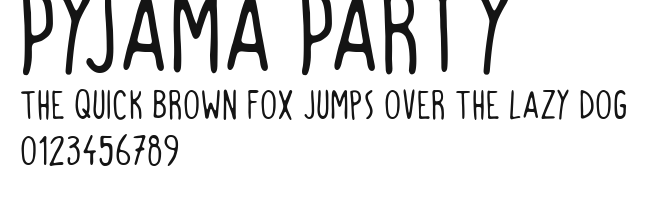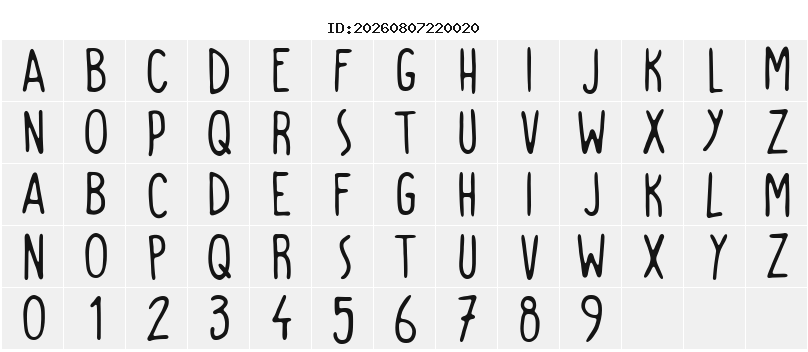
• Font Name: Pyjama Party
• Designer: IMAGEX
About Pyjama Party.ttf
Pyjama Party.ttf is a modern, elegant sans-serif font designed for ultimate readability and visual harmony. Perfect for branding, headlines, web design, and print materials.